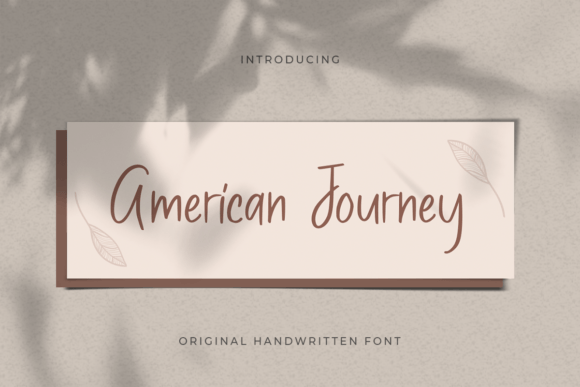
Discover the Charm of American Journey Font: A Sweet and Friendly Handwritten Delight
Are you on the hunt for a font that exudes warmth, friendliness, and a touch of uniqueness? Look no further than the American Journey Font. This sweet and friendly handwritten font is making waves in the design community, and for good reason. Its natural and effortless style makes it incredibly versatile, suitable for a wide range of design projects. Whether you’re a seasoned designer or a crafty DIY enthusiast, American Journey Font is sure to capture your heart and inspire your creativity.
The Allure of American Journey Font
So, what sets American Journey Font apart from other fonts? For starters, its handwritten charm is undeniable. With its fluid strokes and organic feel, this font radiates a sense of approachability and warmth. It’s the perfect choice for designers and crafters who want to add a personal touch to their work. American Journey Font is also highly legible, making it suitable for use in a variety of contexts, from body text to headings and titles.
The beauty of American Journey Font lies in its incredible versatility. Its unique style makes it an excellent fit for a wide range of design projects, including:
- Branding and Logo Design: Use American Journey Font to create a memorable and distinctive brand identity that resonates with your audience.
- Stationery and Invitations: Add a touch of elegance and sophistication to your stationery, invitations, and greeting cards.
- Digital and Print Media: Use American Journey Font in your digital and print media, such as brochures, flyers, and social media graphics.
- Crafting and DIY Projects: Perfect for crafty DIY enthusiasts, American Journey Font can be used to create beautiful handmade cards, scrapbooking, and other paper crafts.
Why Designers and Crafters Love American Journey Font
American Journey Font has quickly become a favorite among designers and crafters, and it’s easy to see why. Here are just a few reasons why this font is a must-have:
- Unique and Eye-Catching: American Journey Font is a breath of fresh air in a world of generic fonts. Its unique style is sure to grab attention and make your designs stand out.
- Easy to Read: Despite its creative and artistic feel, American Journey Font is highly legible, making it perfect for use in body text and other applications where readability is key.
- Flexible and Adaptable: American Journey Font can be used in a wide range of design projects, from formal and professional to casual and playful.